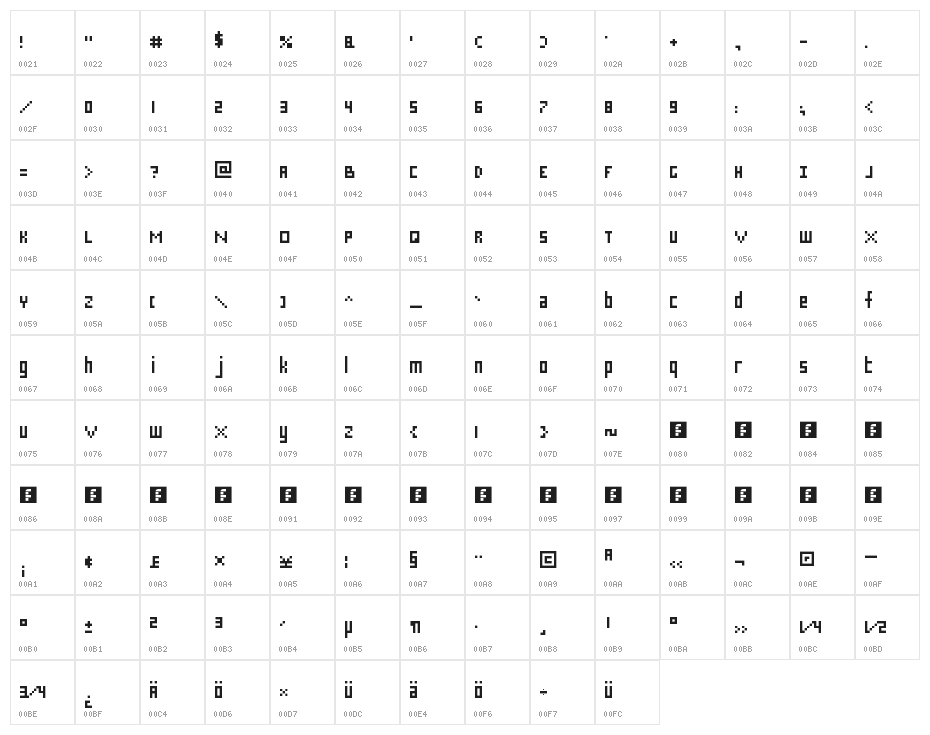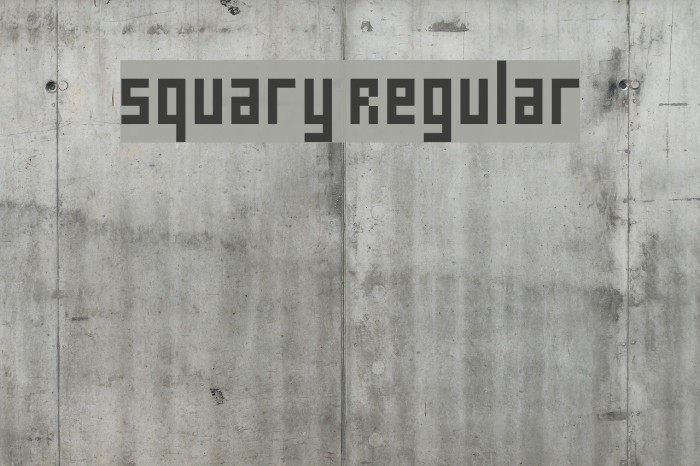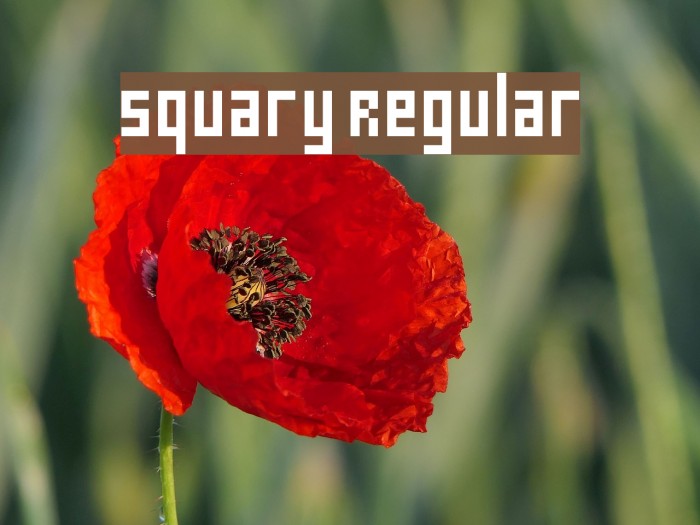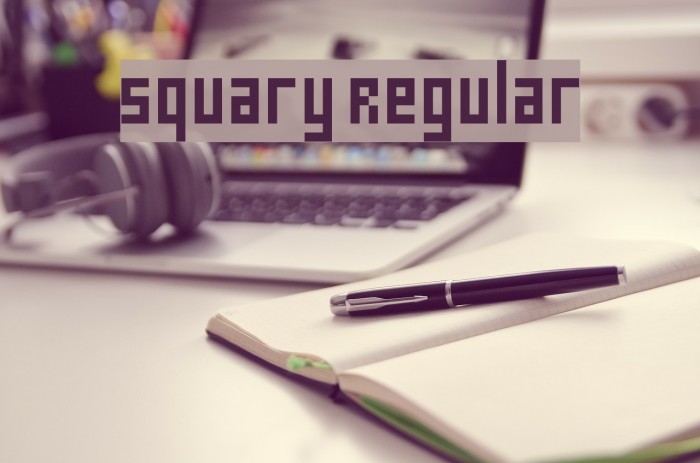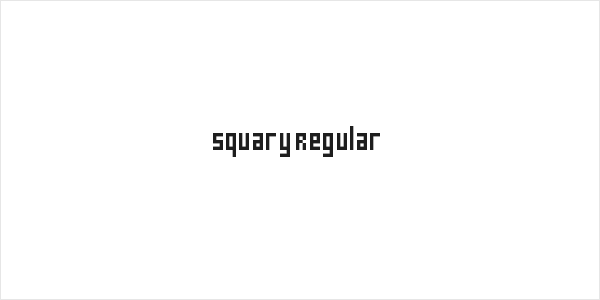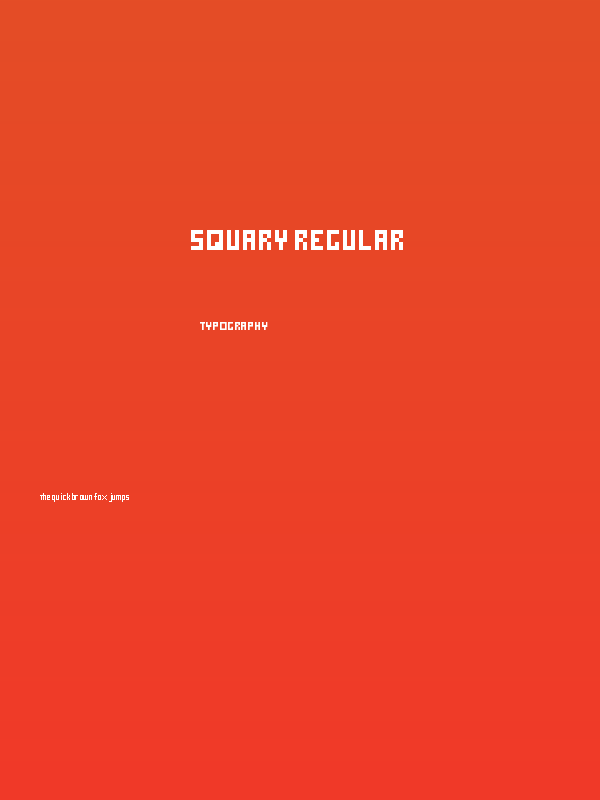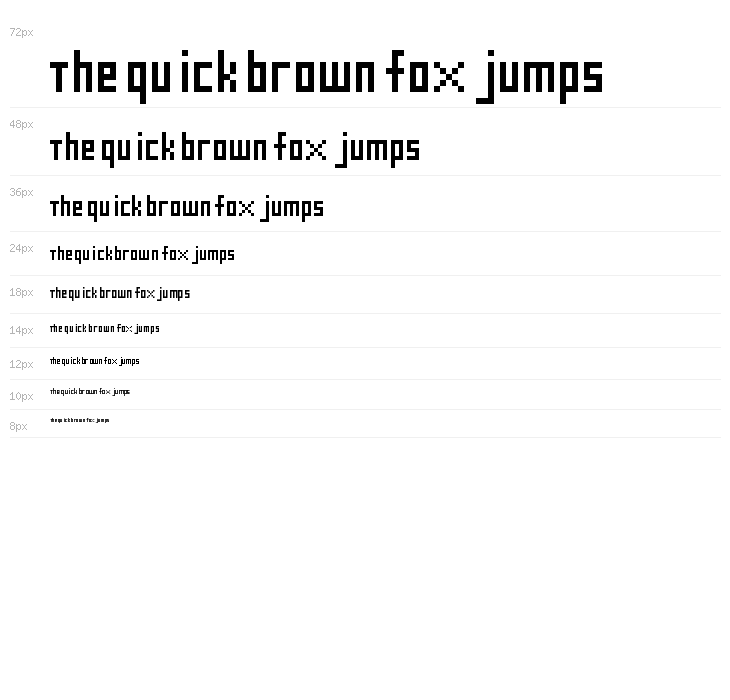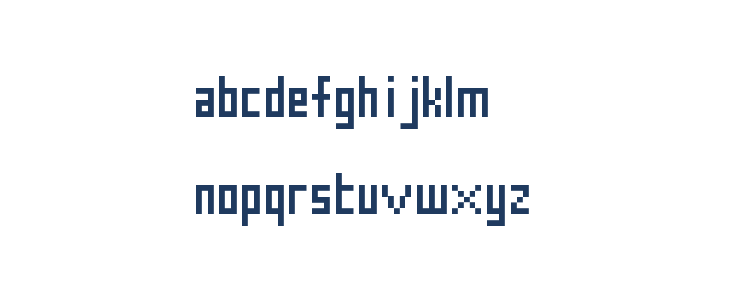
Squary Regular Font
Squary Regular Description
This font features a distinct, pixelated style reminiscent of early digital displays and retro video games. Each character is composed of square blocks, giving it a geometric and modular appearance. The uppercase and lowercase letters maintain a consistent height, contributing to a uniform look across the text. Numbers and special characters follow the same blocky design, ensuring visual coherence. The overall aesthetic is bold and striking, making it ideal for projects that require a vintage or tech-inspired feel.
Overall StyleVintage
Proposed ProjectsIdeal for video game design, retro-themed posters, digital art projects, and tech-related branding.